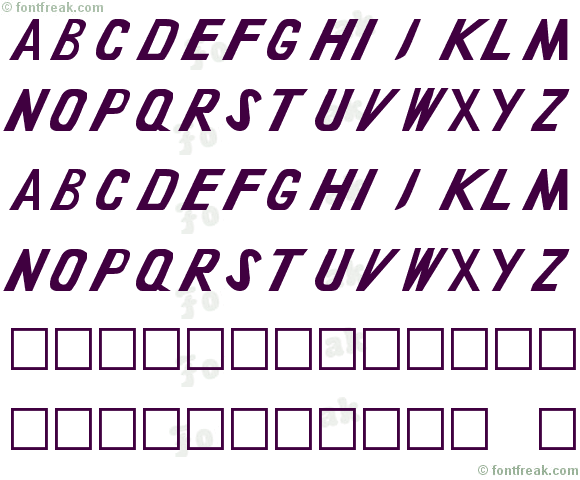
Salamander
The Salamander font, designed by Jenny Barck in 1997, is a captivating display typeface that beautifully balances elegance and playfulness. As a decorative font, Salamander features unique letterforms that are both artistic and approachable. Its distinct stroke weight and moderate contrast give it a well-defined presence while maintaining a light and airy feel. The generous spacing between characters enhances readability, making it suitable for various creative applications.
Salamander is ideal for wedding invitations, where its charming aesthetics can convey warmth and love. It also shines in the realm of children's book covers, where its whimsical design can capture the imagination of young readers. Small business owners can utilize Salamander for branding materials, such as logos or product labels, to create a memorable and inviting identity. Additionally, this font works wonderfully for restaurant menus, adding a touch of personality that can make the dining experience more engaging. Content creators and graphic designers will appreciate Salamander's versatility, as it can elevate any project with a unique flair.
What truly makes the Salamander font remarkable is its ability to blend artistry with functionality. Its unique design elements provide a refreshing alternative to more conventional typefaces, making it an excellent choice for anyone seeking to add a touch of creativity to their work. For those interested, the Salamander font free download is readily available, inviting you to explore its potential for your next project.